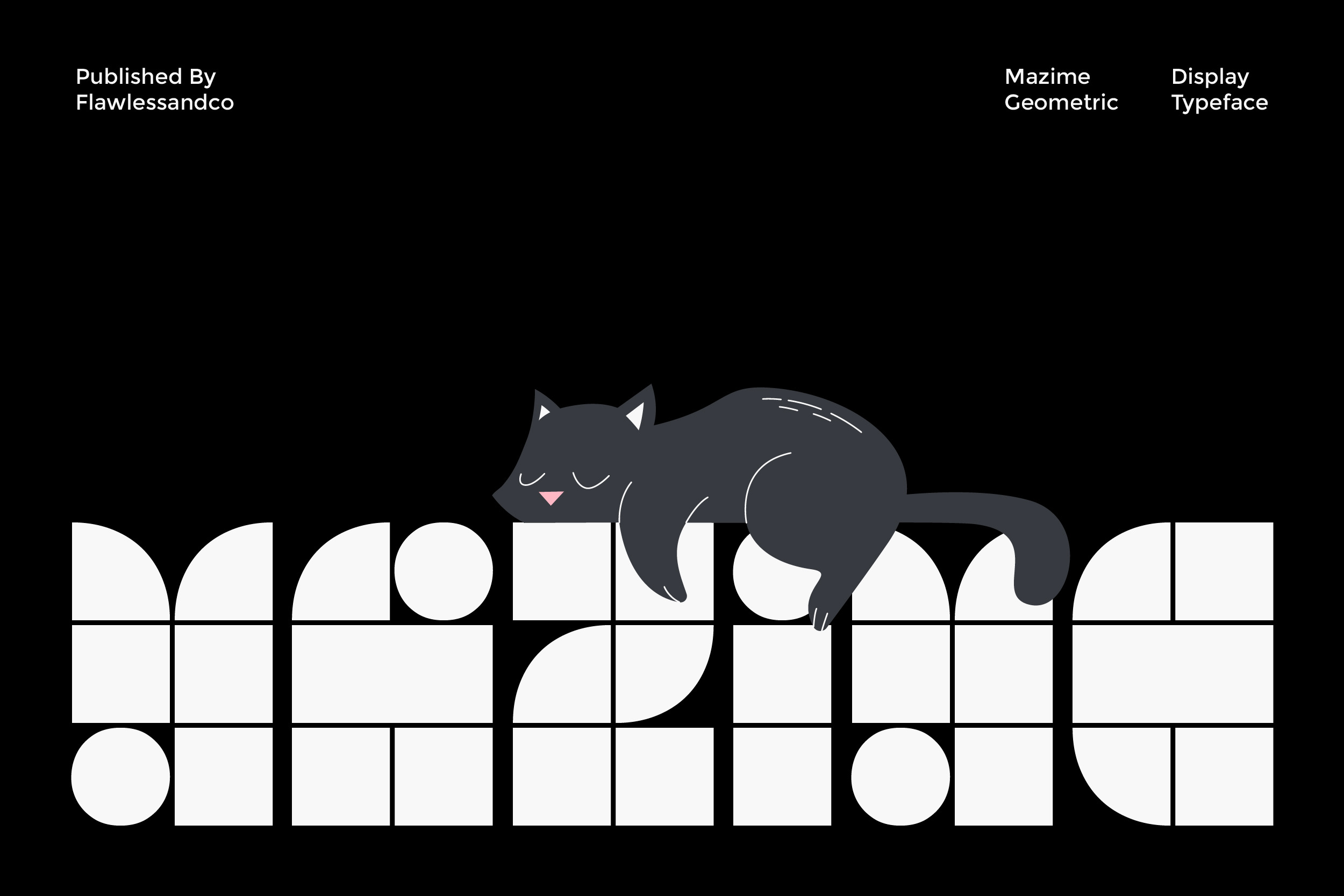
Mazime – Geometric Display Typeface
Mazime is a bold geometric display font that stands out with its clean shapes and modern aesthetic. Inspired by minimalism and modular design, Mazime perfectly balances playfulness and precision — making it ideal for creative projects that demand a unique, contemporary touch.
Who Should Use Mazime?
Mazime is perfect for designers, creatives, and brands who love clean geometric forms and bold visual statements. It’s ideal for those who want to create eye-catching logos, futuristic posters, and modern branding concepts. Whether you’re a professional graphic designer, a digital creator, or an art director seeking a unique typeface to elevate your visuals, Mazime offers the perfect balance of style, creativity, and precision.
A Must-Have Font for "Brand and Logo" Creators and Designers
Mazime is a must-have for creators and designers who focus on modern, geometric, and minimalist brand identities. Its bold shapes and modular design make it an excellent choice for creating distinctive logos, unique wordmarks, and clean visual identities. If you want your branding projects to stand out with a futuristic yet timeless appeal, Mazime is the perfect addition to your font collection.
Why Choose Mazime for "Brand and Logo" Projects?
Mazime offers a perfect balance between creativity and precision. Its geometric structure and clean edges deliver a strong modern presence, while its unique modular style ensures every logo feels fresh and memorable. Whether you're designing for tech brands, creative studios, or lifestyle products, Mazime gives your projects a bold, distinctive, and professional touch that instantly captures attention.
Suitable For:
- Logo and Branding Design
- Modern Posters and Headlines
- Creative Agency Visuals
- Product Packaging
- Tech and Startup Branding
- Fashion and Lifestyle Projects
- Minimalist Advertising
- Social Media Graphics